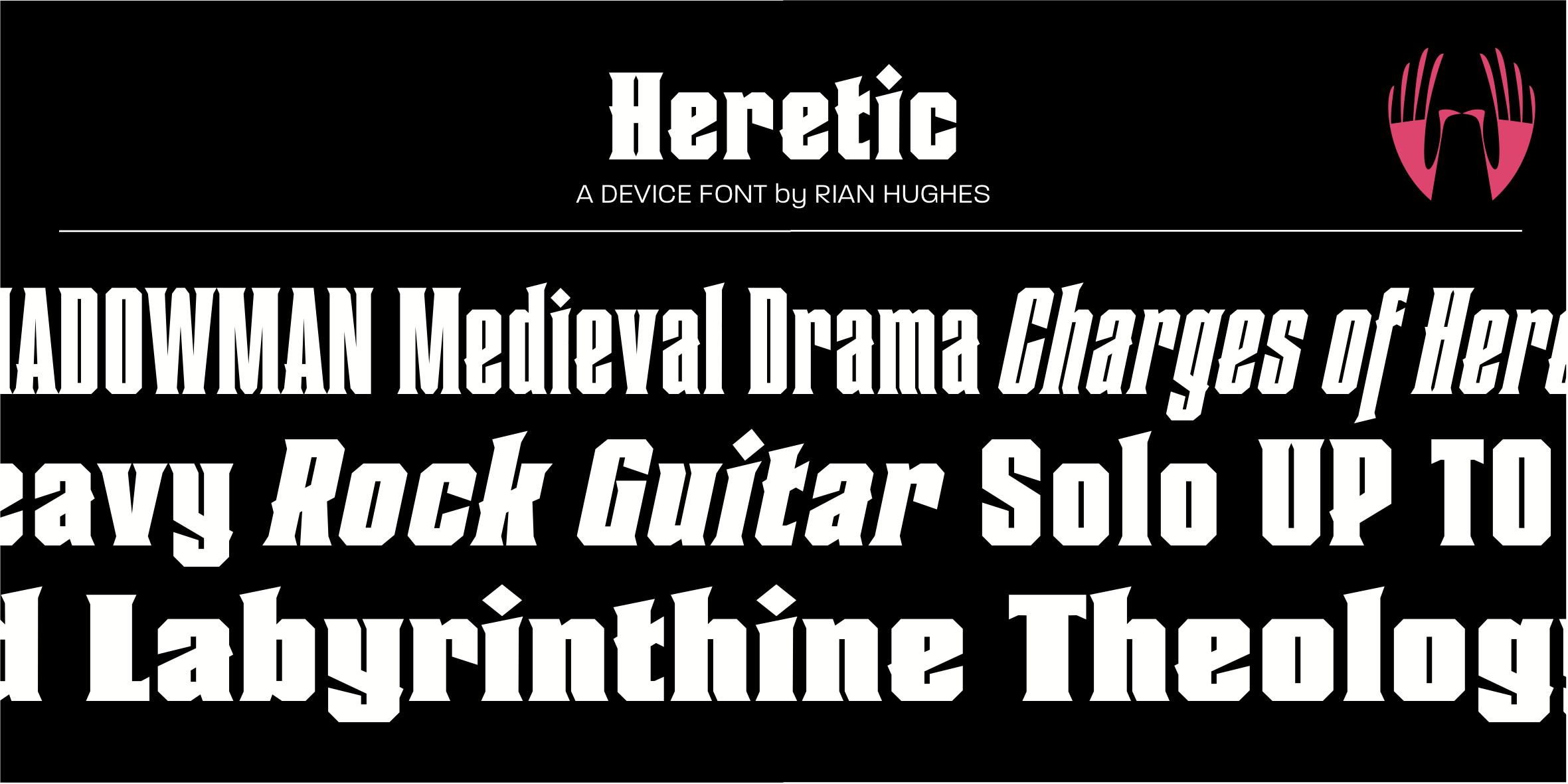
Heretic Font Free Download provides designers with a rebellious typography solution that combines bold defiance with contemporary edge for provocative design applications. This commercial font requires purchase for business use, but you can download it for free for testing purposes to evaluate its distinctive unconventional characteristics in your creative projects.
Heretic Font demonstrates exceptional versatility across numerous design applications including alternative music branding, counterculture marketing, underground event promotions, indie publishing, rebellious fashion labels, artistic protest materials, avant-garde exhibitions, and progressive social campaigns. Its defiant character makes it particularly effective for projects requiring bold statement-making while maintaining artistic credibility, ensuring your designs convey authenticity and revolutionary spirit across both digital platforms and underground print materials.
What makes Heretic Font truly exciting is its radical approach to typography that challenges conventional design norms while maintaining powerful readability and visual impact. The font features boldly crafted letterforms that incorporate unconventional angles and distinctive proportions that create striking visual rebellion while preserving essential communication effectiveness. Its distinctive character construction reflects countercultural design philosophy and artistic resistance, creating text that feels both intellectually provocative and visually compelling. The font's optimized spacing and calculated character relationships ensure superior performance across various alternative applications while preserving the characteristic defiance that defines its revolutionary personality.
Heretic Font offers a comprehensive type family designed to support diverse alternative design requirements. The family typically includes regular, medium, bold, and heavy weights, along with corresponding italic variations that provide complete flexibility for rebellious typography compositions. Many versions feature extended character sets with alternative symbols, countercultural ornaments, and specialized glyphs that enhance authentic underground aesthetic applications.
The Heretic Font Free Download represents outstanding value for designers working on alternative and countercultural projects across multiple creative sectors. Whether developing underground music branding, creating protest movement materials, designing independent publication content, or producing alternative fashion communications, this font delivers consistent authenticity and memorable rebellious impact. Its unconventional characteristics make it particularly effective for industries including independent music, alternative fashion, underground arts, and social activism sectors seeking to communicate genuine resistance and artistic integrity.
For maximum effectiveness, Heretic Font combines powerfully with high-contrast color schemes and raw design elements that reinforce its rebellious message. Its defiant presence excels in headline applications while maintaining excellent performance in alternative publication contexts. The font's countercultural sophistication and revolutionary appeal make it an essential tool for creating authentic underground communications that resonate with audiences challenging conventional boundaries and embracing artistic rebellion.